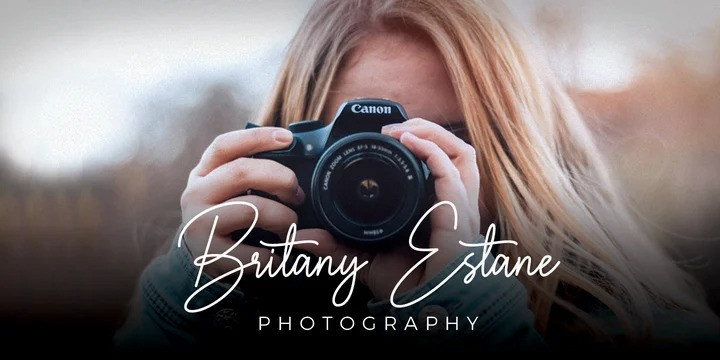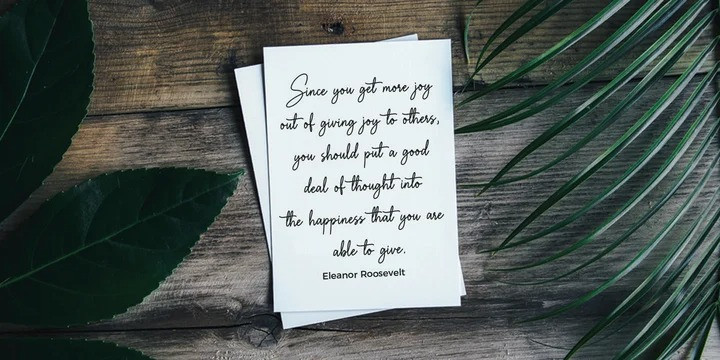
Delysha Calligraphy Font
Delysha – Beautiful Script Font, from Letterfabric Studio, is a beautiful script font, suitable for any projects such as: logos, branding projects, homeware designs, product packaging, mugs, quotes, posters, shopping bags, t-shirts, book covers, name card, invitation cards, greeting cards, label, photography, watermark, special events, and all your other lovely projects that need a beautiful script taste.